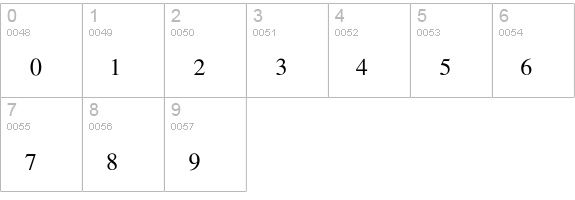
TmsFraction:b-Normal Font Details
TmsFraction:b-Normal is the standard, neutral variant in the TmsFraction:b typeface family \xE2\x80\x94 well suited to general body text, paragraphs, and standard typographic work.
TmsFraction:b-Normal font is a visually appealing and versatile typeface that is perfect for various design projects. With its clean lines and elegant curves, this font exudes a sense of modernity and sophistication. Designed with precision and attention to detail, TmsFraction:b-Normal font offers a unique blend of professionalism and creativity. It is suitable for both print and digital media, making it a versatile choice for graphic designers, web developers, and typographers alike. One of the standout features of TmsFraction:b-Normal font is its exceptional legibility. Each character is carefully crafted to ensure optimal readability, even in smaller sizes. This makes it ideal for use in body text, headlines, and captions. Furthermore, TmsFraction:b-Normal font is freely available to download at FontsMarket.com. This means that you can easily access and utilize this exceptional typeface in your projects without any additional cost. Whether you are a professional designer or a hobbyist, this font provides a high-quality option that won't break the bank. In conclusion, TmsFraction:b-Normal font is a remarkable and versatile typeface that combines modern aesthetics with exceptional legibility. With its clean lines, elegant curves, and free availability at FontsMarket.com, it is a valuable addition to any designer's toolkit.